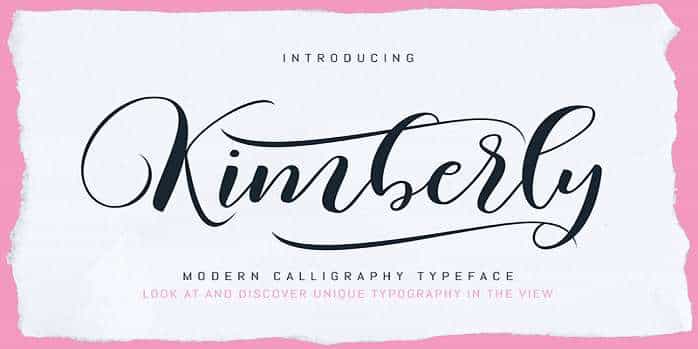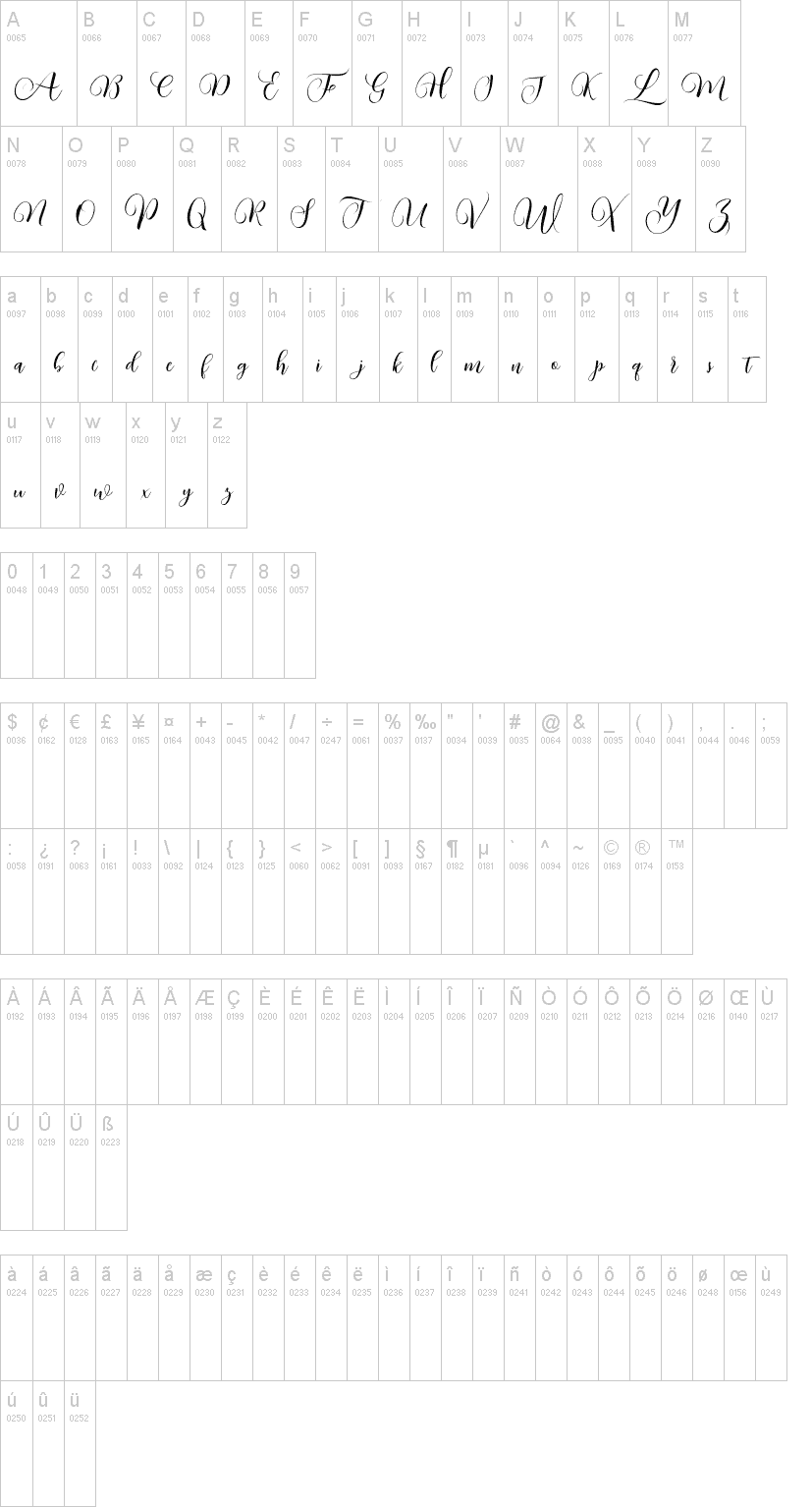
Discover Kimberly Font, part of the Calligraphy collection—a versatile and unique font perfect for adding a personal touch to your projects. Download it for free and enjoy crafting designs with style, from invitations to social media posts. This font is available exclusively for personal use, giving you the freedom to create without limits. Unlock your creativity with Kimberly Font today!
Kimberly is another one of those Calligraphy fonts that you will definitely love to download and use for your personal work for free. The free version of the keyboard includes all letters in both uppercase and lowercase and a few symbols as well.